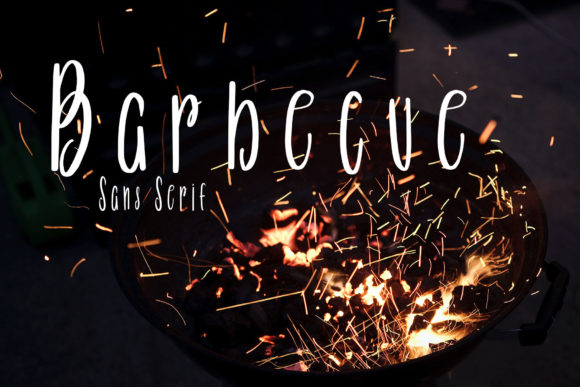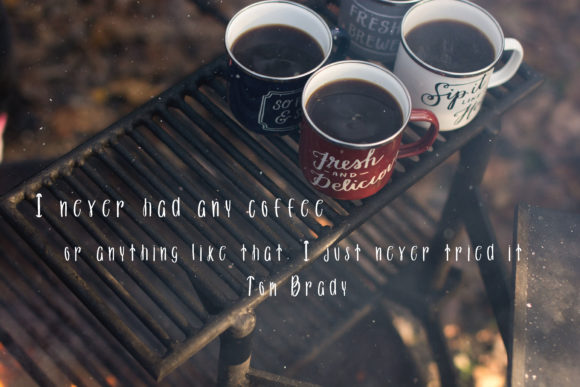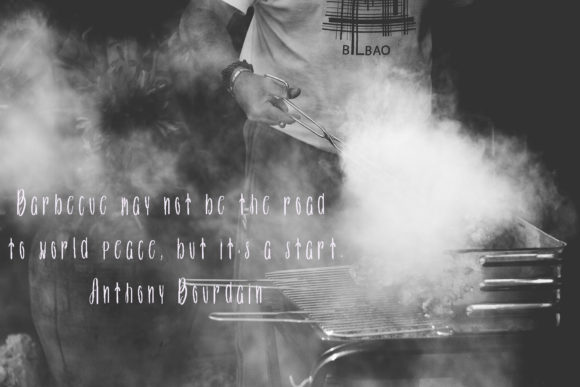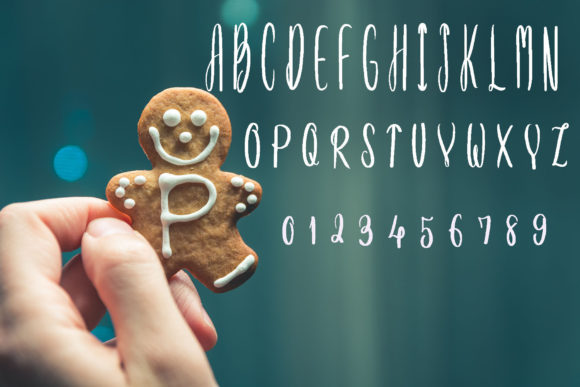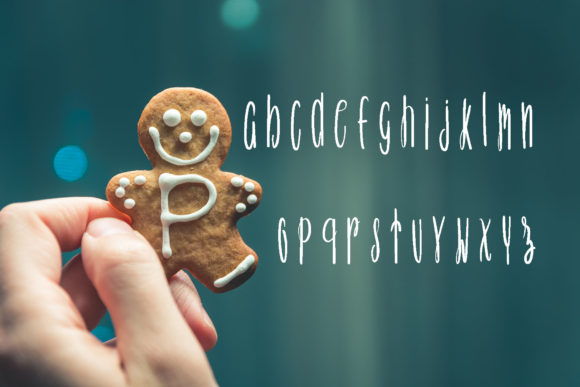
Barbecue Font
About Barbecue Font
Barbecue is a sweet and friendly handwritten font. Its natural and unique style makes it incredibly fitting to a large pool of designs. The only limit is your imagination!